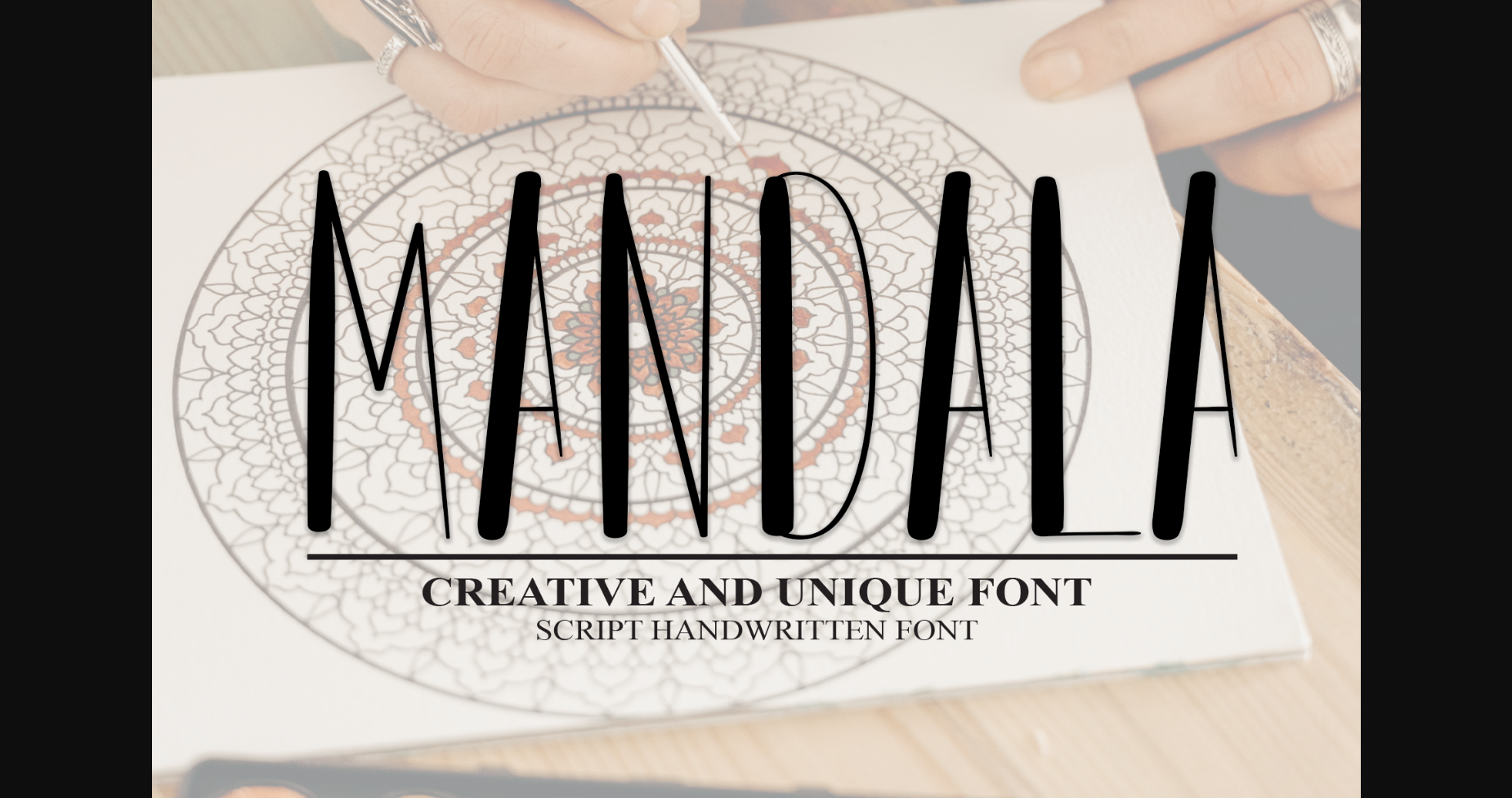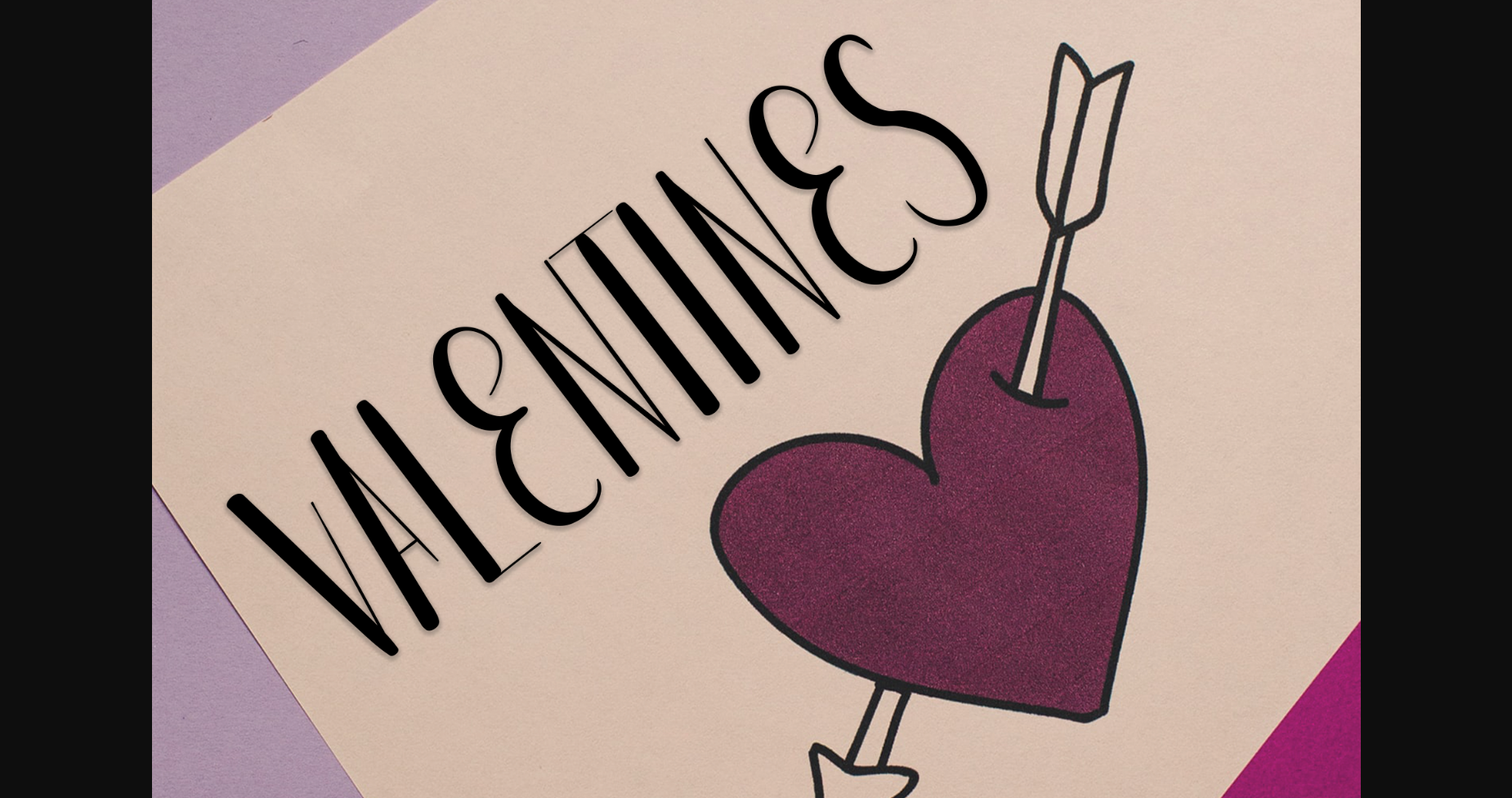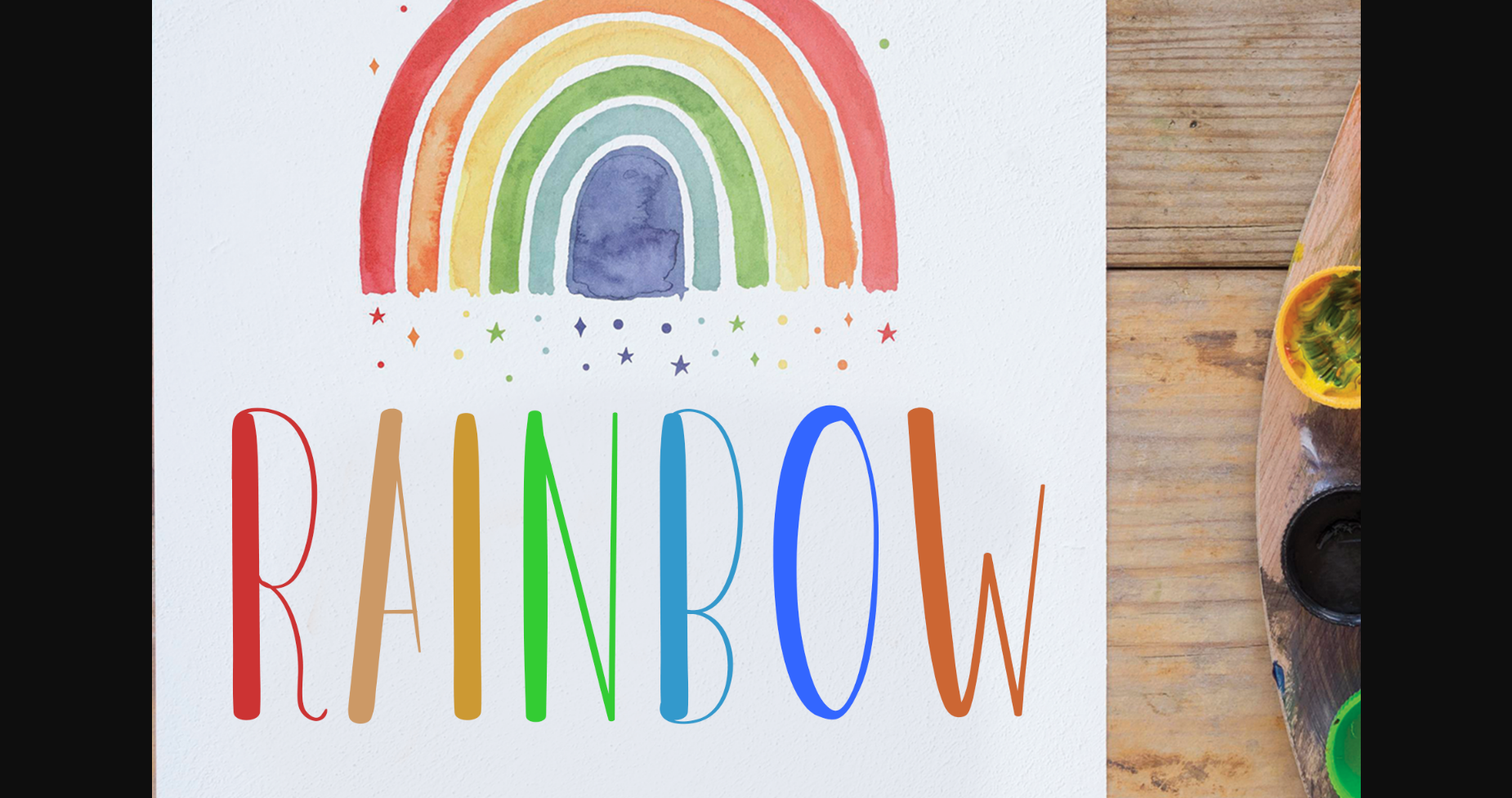
About Mandala Font
Mandala is a cool, simple, and playful handwritten sans serif font. Incredibly versatile, this font fits a wide pool of designs, elevating them to the highest levels. Add this font to your favorite creative ideas and notice how it makes them come alive!